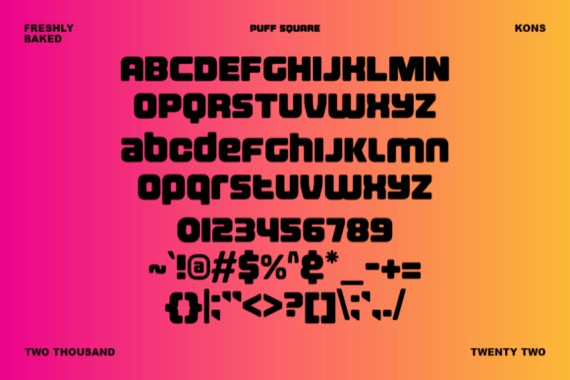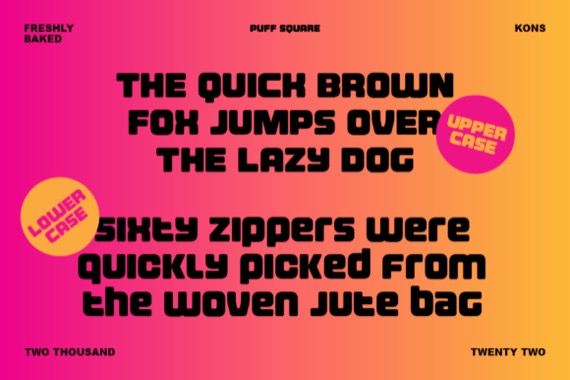
Puff Square is a playful and chunky sans-serif display font that was released by Konstantine Studio. It is rounded in every corner to give playful and casual vibes to your visual aesthetic.
Puff Square Display Sans Font
Designer, Publisher: Konstantine Studio